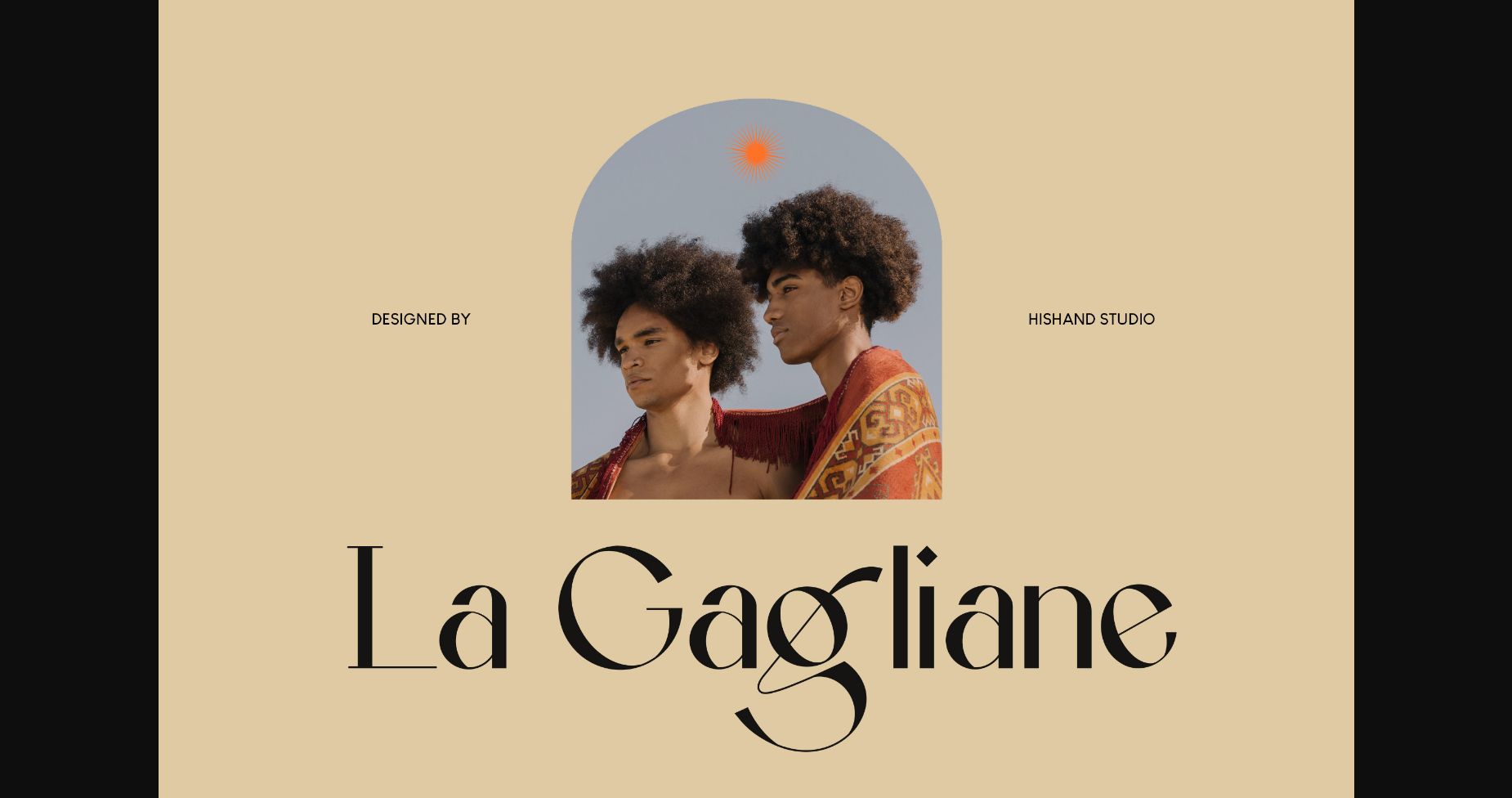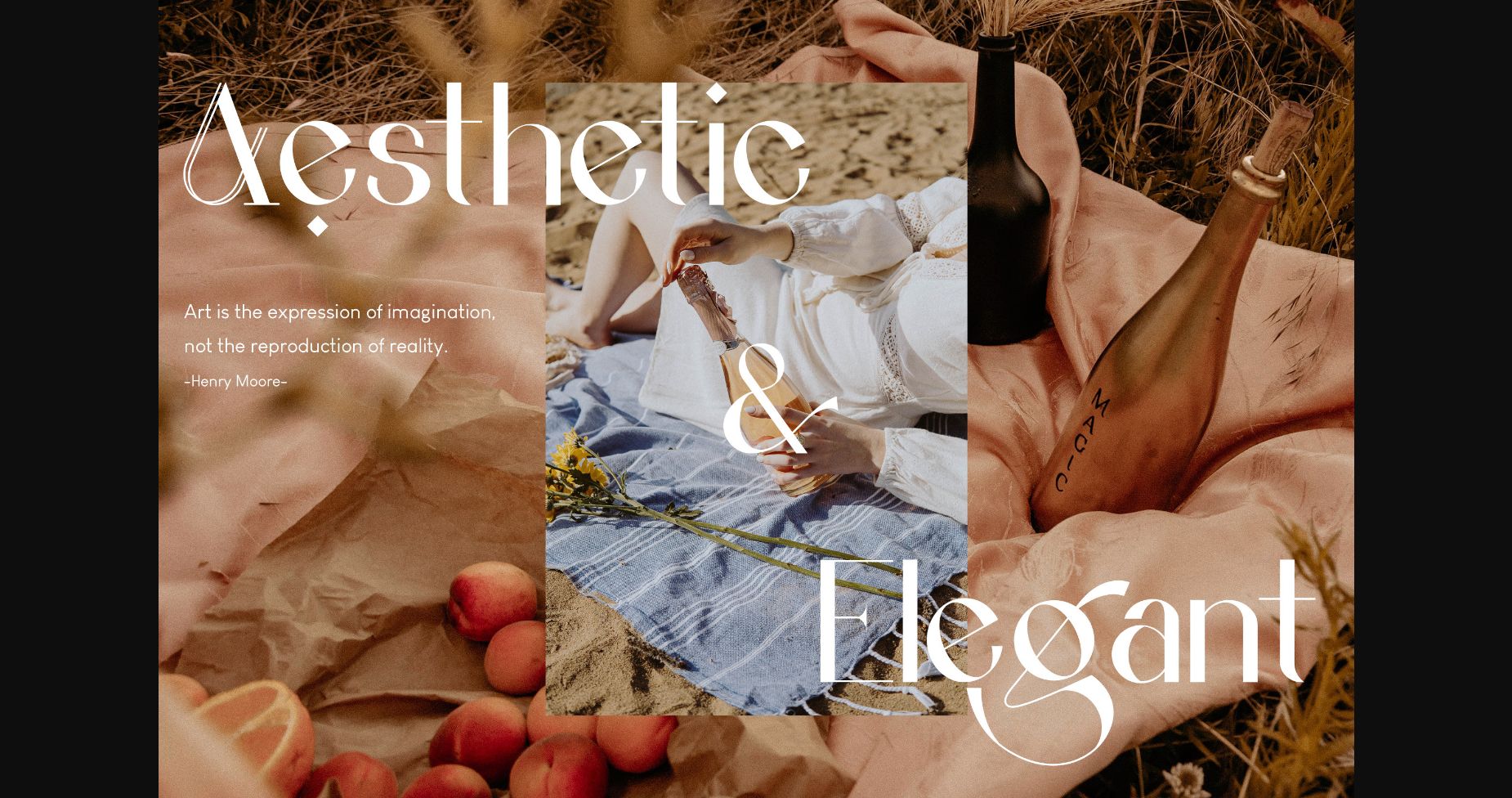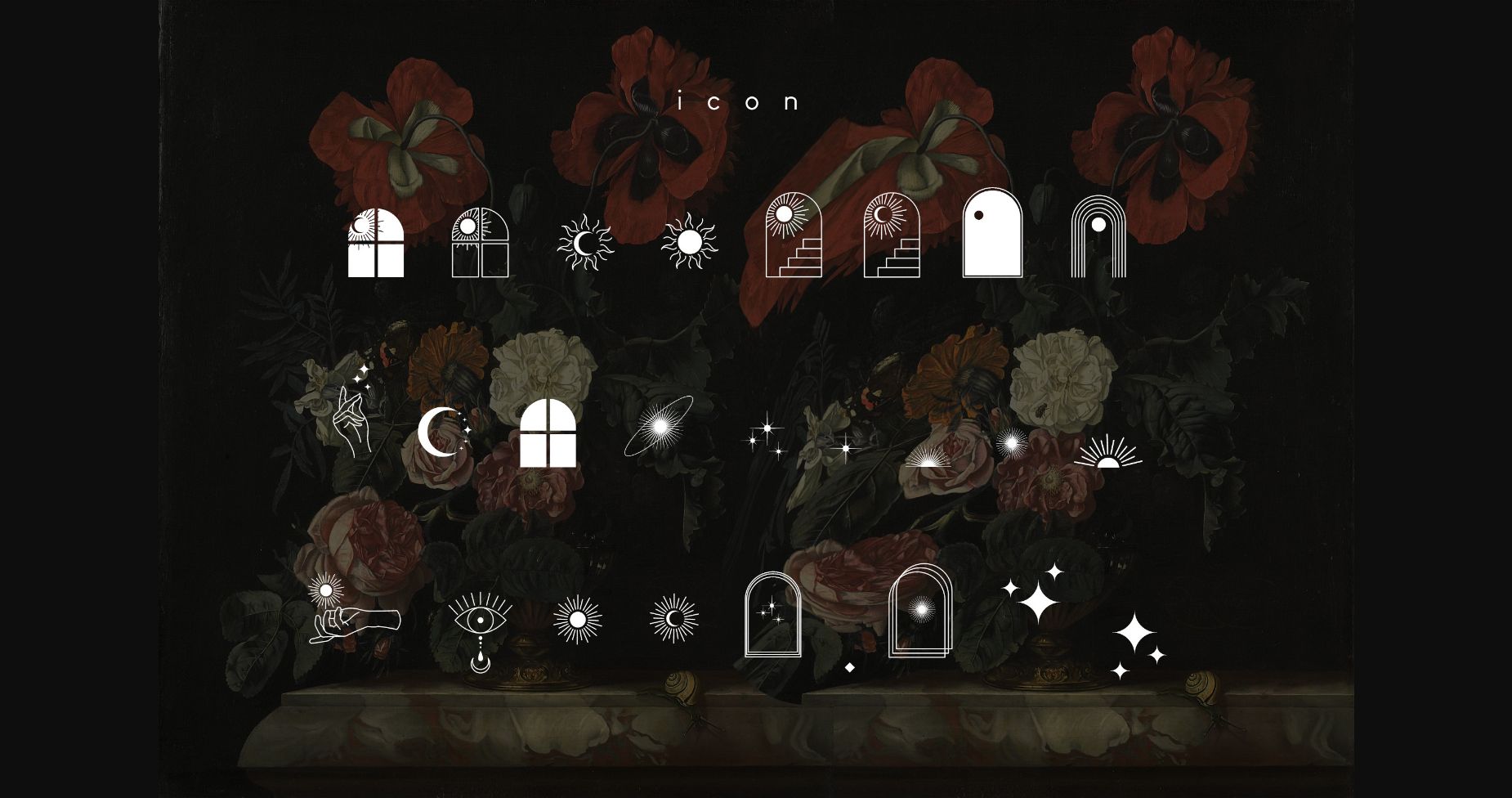
About La Gagliane Font
La Gagliane is a light, thin and delicate sans serif font. It has a classy, elegant and modern look that can be used for logos, branding, invitations, stationery, wedding designs, social media posts, and much more!